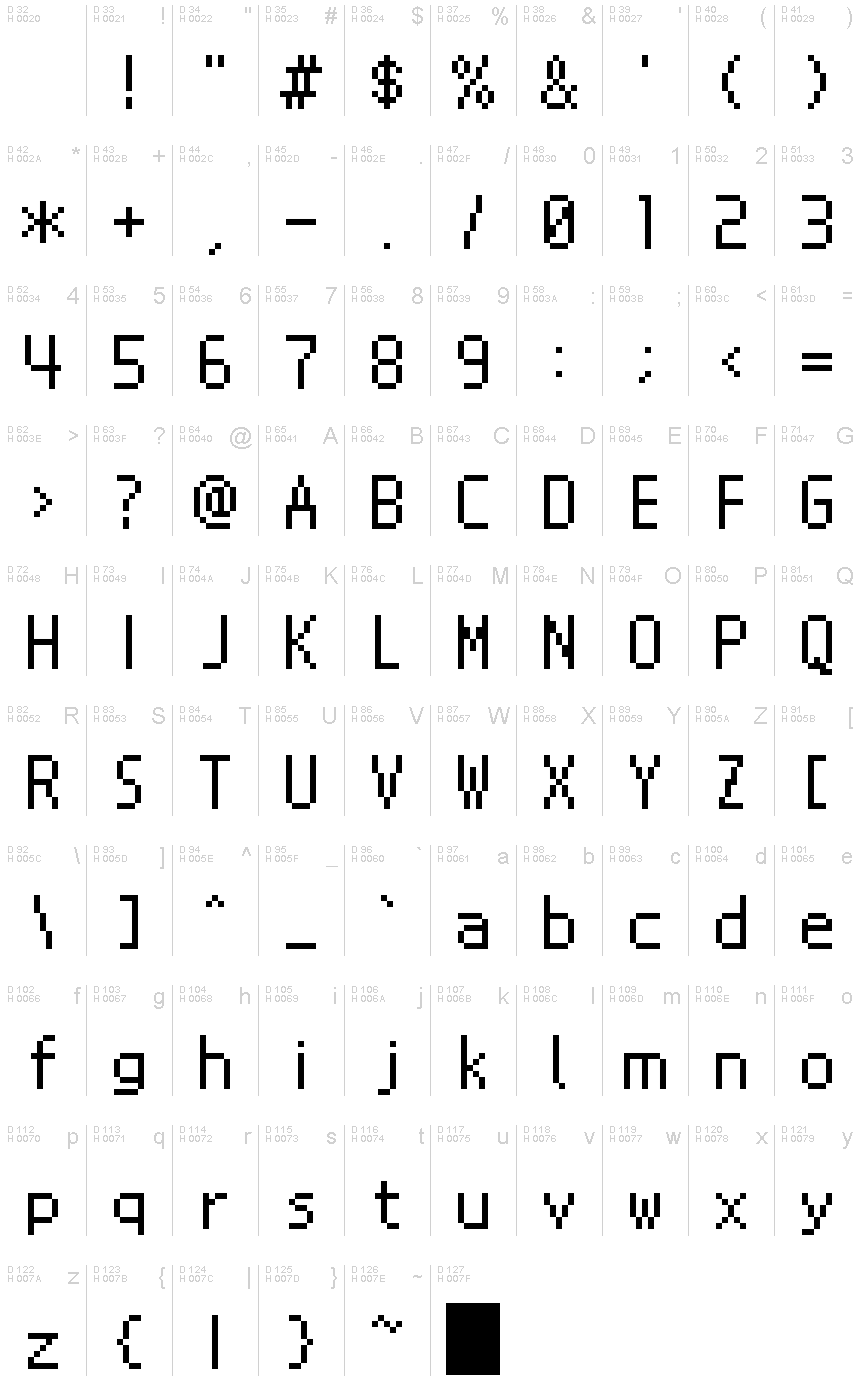
NDS12
NDS12 is a captivating pixel font that seamlessly blends sleek aesthetics with a nostalgic charm. Meticulously crafted to emulate the original Nintendo DS system font, this condensed sans-serif typeface boasts a striking pixelated appearance that evokes a retro-futuristic vibe.
The font's comprehensive character set, including Japanese hiragana and katakana, along with a vast array of unique glyphs and symbols, make it a versatile choice for a wide range of design applications. From retro-inspired video game interfaces to modern digital publications, NDS12's clean lines and impactful visual presence lend themselves effortlessly to both traditional and contemporary design styles.
Features:
799 characters total
Proportional sans-serif typeface
Countless additional special characters, diacritic variants, etc.
Complete monospaced Japanese hiragana and katakana character sets
Buttons, arrows, unique glyphs, and many more
NDS12 by Caveras - based on the original system font of the Nintendo DS.